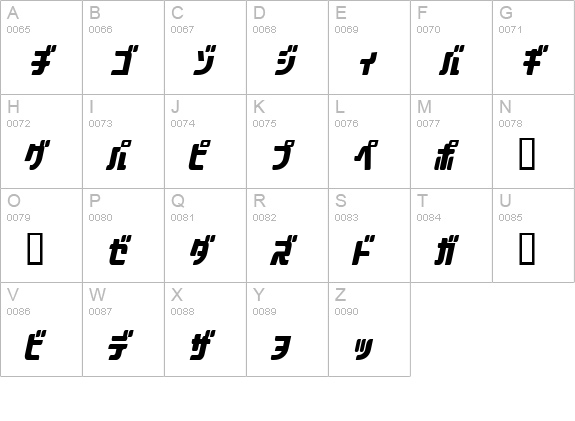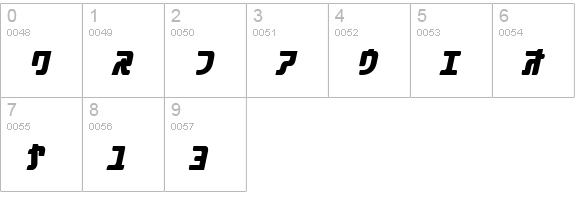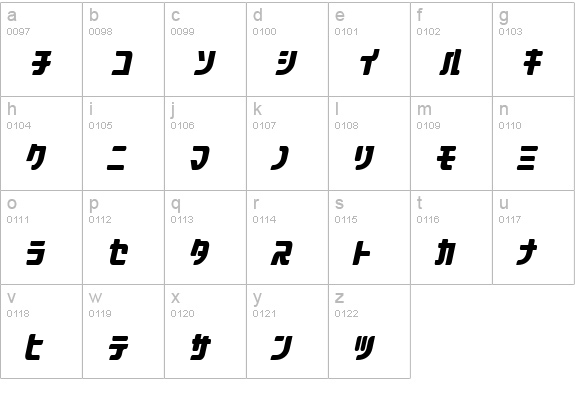
aquasky 2.0KAT Italic is a distinctive, italic variant in the aquasky typeface family \xE2\x80\x94 well suited to design and typography projects.
Aquasky 2.0KAT Italic font is a perfect blend of elegance and modernity, making it an ideal choice for any design project that requires a touch of sophistication. This beautifully crafted font features sleek, flowing lines and a slight italicized slant that adds a dynamic and stylish flair to your text. With its clean and crisp appearance, Aquasky 2.0KAT Italic font is versatile and can be used for a variety of design purposes, from branding to advertising to social media graphics. Whether you are creating a logo, designing a website, or crafting a poster, this font will make your text stand out and grab attention. The best part is that Aquasky 2.0KAT Italic font is completely free to download at FontsMarket.com. Yes, you read that right - you can enhance your design projects with this stunning font without spending a dime. So why wait? Head over to FontsMarket.com now and add Aquasky 2.0KAT Italic font to your collection today!